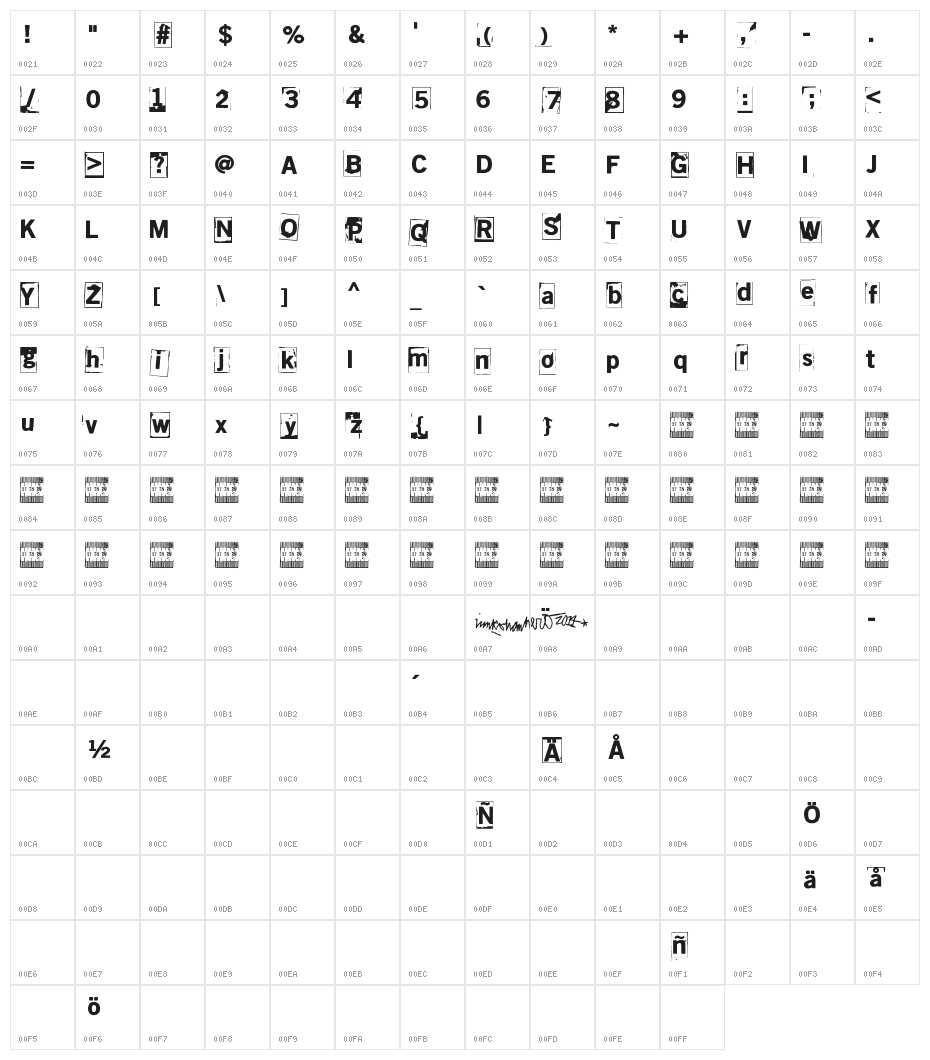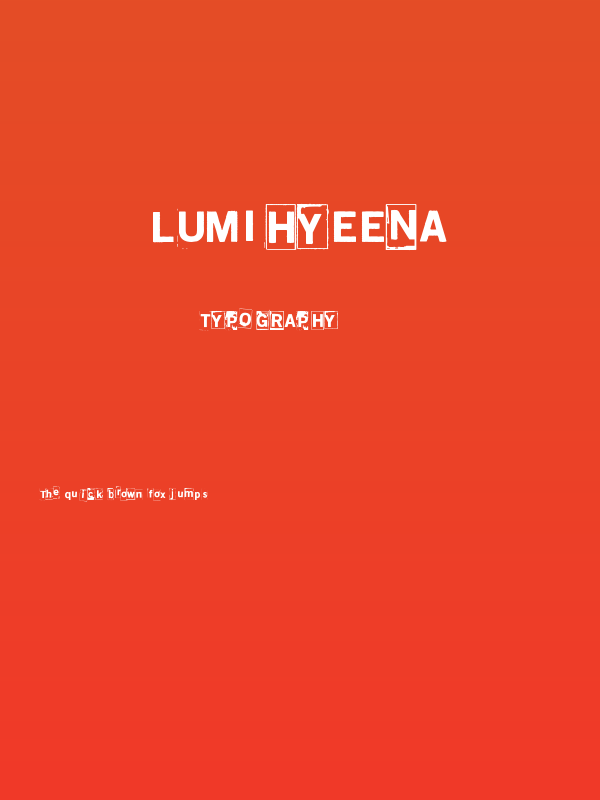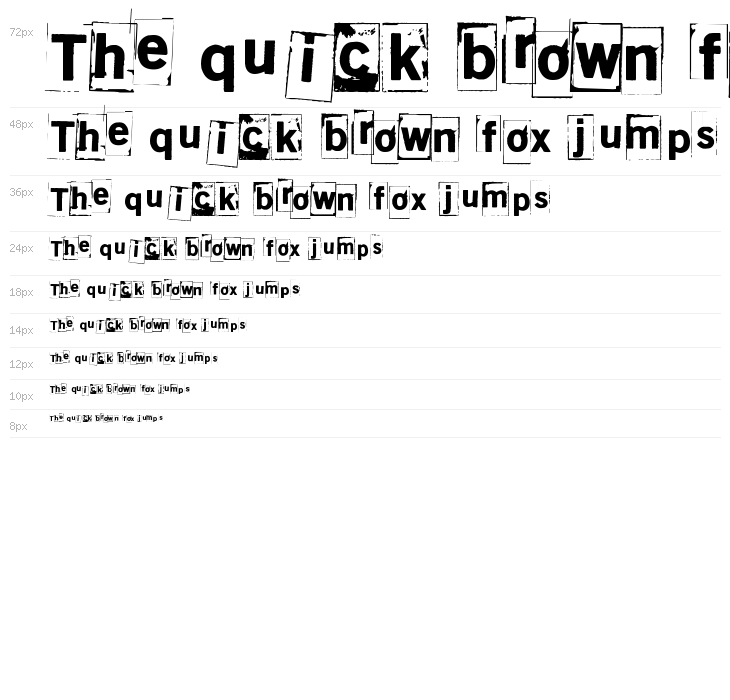
Lumihyeena Font
Lumihyeena Description
This font presents a bold and distressed aesthetic, reminiscent of vintage typewriter keys or ransom notes. Each character is enclosed in a rough, uneven box, adding to its rugged and edgy appearance. The letters are bold with a slightly irregular texture, giving them a worn and grunge-like feel. This style is perfect for projects that require a touch of rebellion or a gritty, urban vibe. The font's unique character makes it stand out, making it suitable for eye-catching designs.
| Overall Style | Vintage, Grunge |
| Proposed Projects | Ideal for album covers, posters, urban-themed designs, or any project needing a bold, edgy look. |